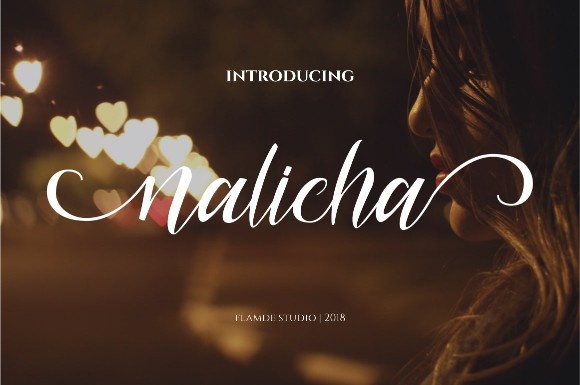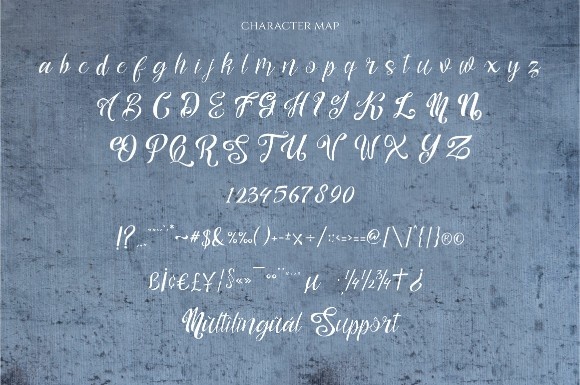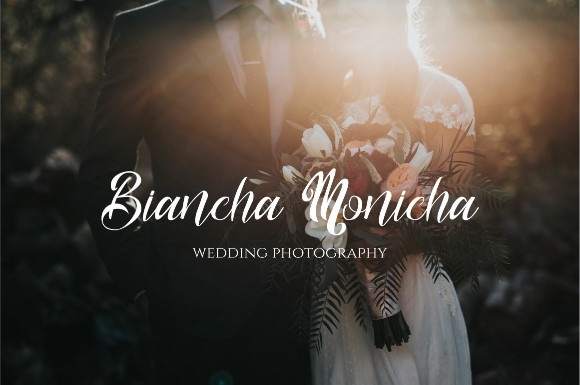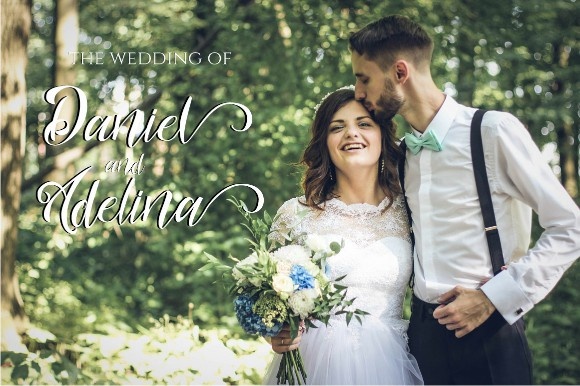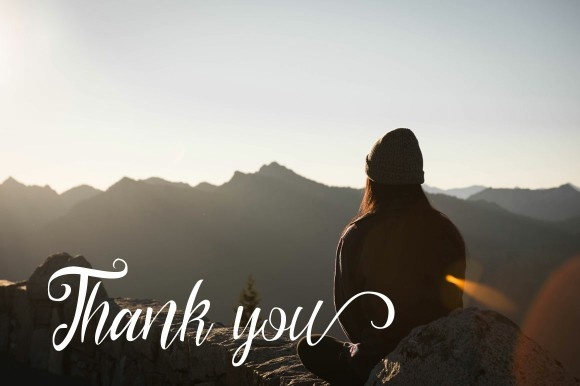
Nalicha Script Font
About Nalicha Script Font
The Nalicha is a modern script font. It has a handmade calligraphy style and was sketched with love to add some passion to your designs.
It’s beautiful on invitations, greeting cards, branding materials, business cards, quotes, posters, and more!